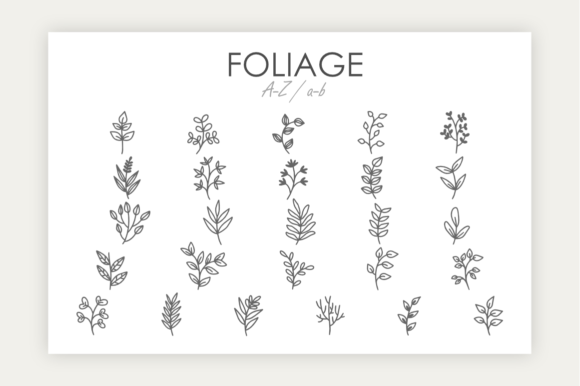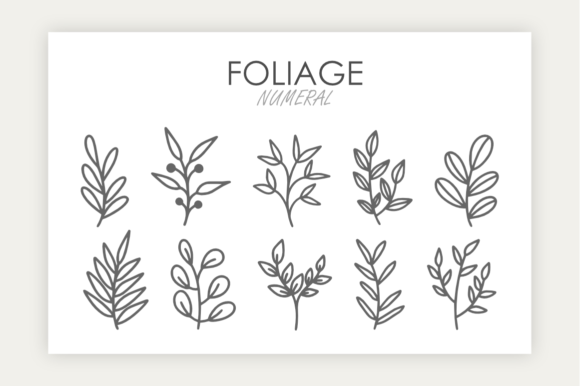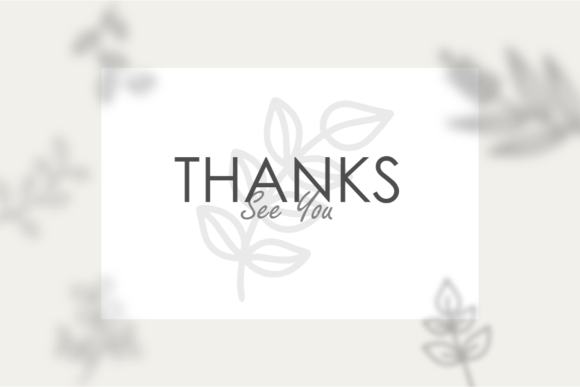
Foliage Font
“Foliage” is a captivating and versatile dingbat font that showcases the beauty of plants through elegant line art. This font offers a collection of intricate and detailed glyphs, each featuring a unique plant or foliage design. With its diverse range of botanical elements, “Foliage” is a perfect choice for a wide variety of creative purposes.
When it comes to invitations and stationery, “Foliage” adds a touch of natural beauty and sophistication. The line art glyphs can be used to embellish wedding invitations, birthday cards, or any other special occasion stationery. The intricate plant designs create an enchanting atmosphere, bringing a sense of elegance and organic charm to your designs. Whether used as borders, accents, or focal points, “Foliage” adds a graceful touch to your invitations.
For wall art and home decor, “Foliage” can be a stunning choice. You can create botanical-themed prints, posters, or canvas art using the font’s line art glyphs. The intricate plant designs add a sense of tranquility and harmony to any space, bringing the beauty of nature indoors. Whether you’re aiming for a minimalist or bohemian aesthetic, “Foliage” provides an artistic touch that complements various interior styles.
When it comes to weddings and events, “Foliage” offers endless possibilities. The line art glyphs can be used to design elegant monograms, create decorative borders for invitations, or even adorn wedding favors and table settings. The botanical motifs of “Foliage” add a touch of refinement and nature-inspired elegance to any wedding or event design.
The seamless patterns created with “Foliage” can be used for a range of applications, such as textiles, packaging, or website backgrounds. By arranging the plant motifs in a repeating pattern, you can create visually captivating designs that evoke a sense of harmony and tranquility. The versatility of “Foliage” allows you to experiment with different color schemes and layouts to suit your specific design needs.
In summary, “Foliage” is a fun and beautiful dingbat font that offers a wide range of line art glyphs depicting plants and foliage. Its intricate designs make it suitable for various creative purposes, including invitation embellishments, wall art, weddings, seamless patterns, and more. Incorporating “Foliage” into your designs adds a touch of natural elegance and artistic flair, allowing you to create visually stunning and captivating creations. Let the beauty of plants come to life with “Foliage” and infuse your designs with the enchantment of nature.